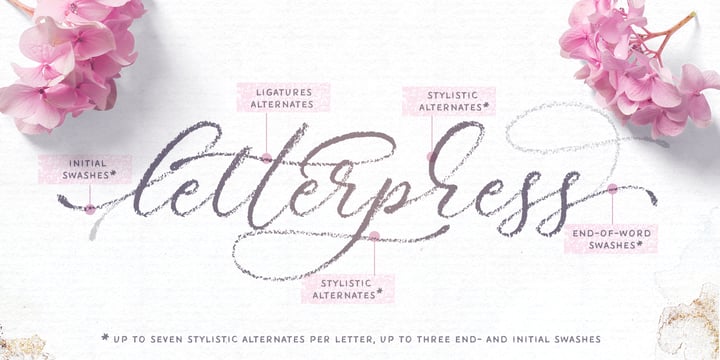
Palomino
Palomino by My Creative Land
Palomino Font Family was designed by Elena Genova and published by My Creative Land. Palomino contains 4 styles and family package options. More about this family
About Palomino Font Family
Palomino Clean - “Clean” version of Palomino is also available Please welcome Palomino - a new modern calligraphy font family created using amazing Palomino Blackwing 602 pencils (it took 3 pencils to create the whole family!). All fonts work perfectly well together, allowing you to create stylish elegant designs with a handwritten look. The script font is loaded with initial, medial, and terminal alternates and swashes. With the help of three other fonts (condensed sans, simple sans, and design elements), you’ll be able to create stunning designs with a click of a mouse. This versatile font family will work perfectly for fashion, e-commerce brands, wedding boutiques, photography, quotes design, and a lot more. It has extensive language support and is fully unicode mapped. Palomino Clean - digitized version of Palomino is also available
About My Creative Land
“I’m trying to create not just a set of lines that form letters, but to create a font that will have a story behind it,” Elena Genova says, “a font that will be unique and one that will help to add some character into the designs in which it is used.” Located in Edinburgh, UK, Elena has always been interested in handwriting. “It all started in school,” she says, “I always paid attention to classmates’ handwriting, often imitating, and sometimes trying to improve, the ones that appealed to me the most.” In 2014, Elena found herself at a point in her design career in which she could finally start to explore lettering and calligraphy, and since then, she has made it her primary focus. Her handwritten appeal has seen amazing success since the very beginning. She reigned our Hot New Fonts list from the start with Evenfall, Veryberry Pro and La Veronique; all of which were released within her first month on MyFonts. Her lifelong passion for handwriting lends a very personal touch to each of her typefaces. “Beautiful handwriting is like a piece of art to me,” she says. “I admire it.”